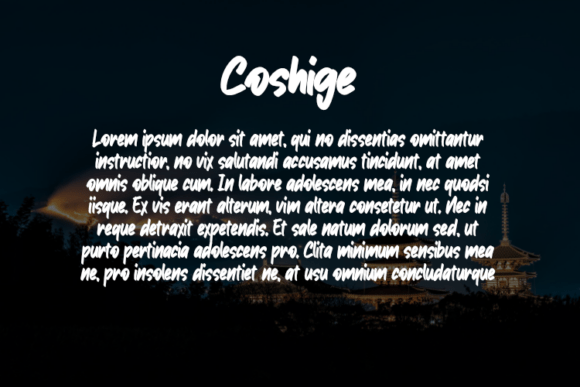
Unleash Your Creativity with Coshige Font: The Ultimate Choice for Fashion Designers
In the world of fashion design, typography plays a crucial role in bringing concepts to life. A font can make or break the visual appeal of a design, and that’s where Coshige comes in – a fluid yet vibrant font that’s primed for transforming your fashion design concepts into breathtaking realities. In this article, we’ll explore the features, benefits, and potential of Coshige, and why it’s the ideal choice for clothing, t-shirts, and a range of creative projects.
The Charismatic Charm of Coshige
Coshige is more than just a font – it’s an experience. Its charismatic charm lies in its fluid and vibrant design, which effortlessly captures the essence of fashion. The font’s unique style is perfect for designers who want to add a touch of elegance and sophistication to their designs. Whether you’re working on a clothing brand, a t-shirt design, or any other creative project, Coshige is sure to make a statement.
Versatility at Its Best
One of the standout features of Coshige is its versatility. This font glides seamlessly across all designs, making it perfect for a wide range of applications. From fashion labels to t-shirt designs, and from digital media to print materials, Coshige adapts effortlessly to any design style. Its compatibility with any software ensures that you can integrate it into your digital toolkit without any hassle.
Ideal for Fashion Designers
Coshige is specifically designed with fashion designers in mind. Its fluid and vibrant design makes it perfect for creating stunning fashion labels, t-shirt designs, and other clothing-related projects. The font’s unique style adds a touch of elegance and sophistication to any design, making it ideal for high-end fashion brands or casual wear.
Beyond Fashion: Endless Creative Possibilities
While Coshige is ideal for fashion designers, its versatility extends far beyond the world of fashion. This font can be used for a wide range of creative projects, including:
- Graphic design projects
- Digital media and advertising
- Print materials and packaging
- Web design and development
With Coshige, the possibilities are endless, and the font’s adaptability ensures that it will breathe life into any creative project.
Why Choose Coshige?
So, why choose Coshige over other fonts? Here are just a few reasons:
- Unique and charismatic design
- Versatile and adaptable
- Ideal for fashion designers and beyond
With Coshige, you can experience the boundless potential of a font that truly understands the needs of fashion designers and creative professionals.
In conclusion, Coshige is more than just a font – it’s a design experience. Its fluid and vibrant design, versatility, and compatibility make it the ultimate choice for fashion designers and creative professionals. Whether you’re working on a clothing brand, a t-shirt design, or any other creative project, Coshige is sure to bring your vision to life. So, why wait? Embrace the charismatic charm of Coshige and unlock the full potential of your designs.